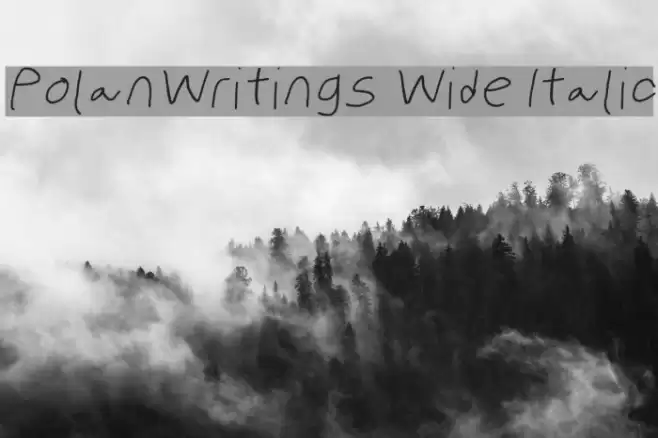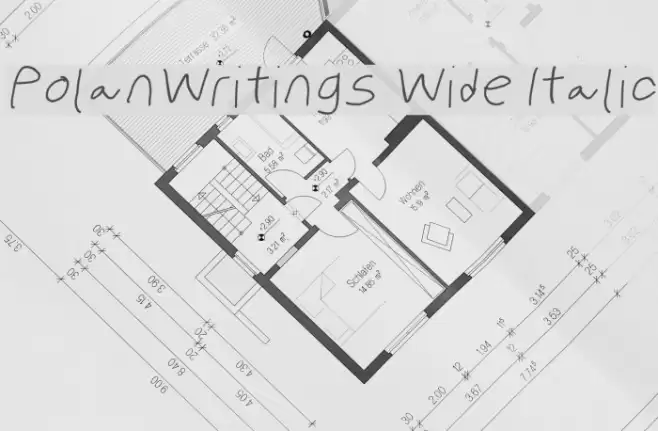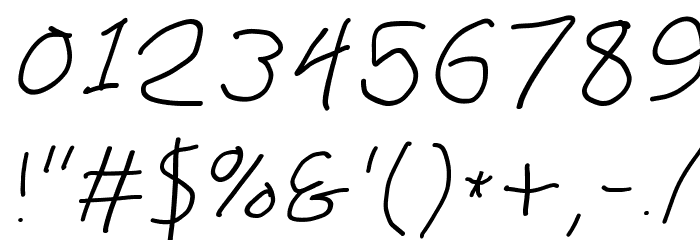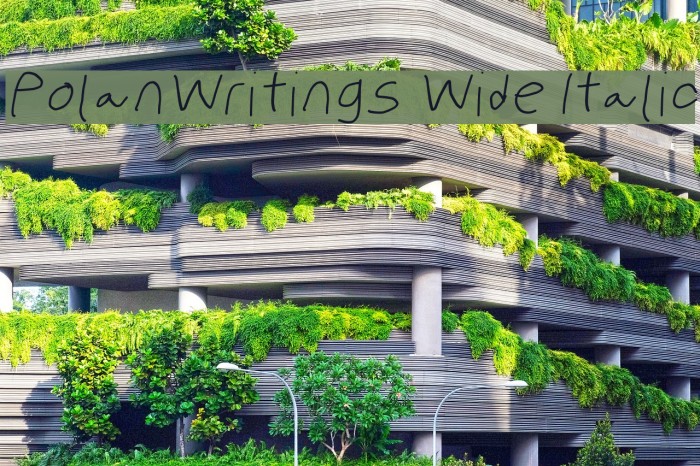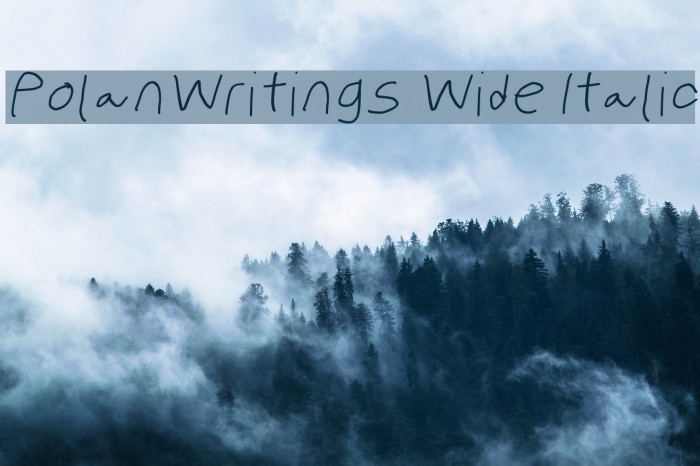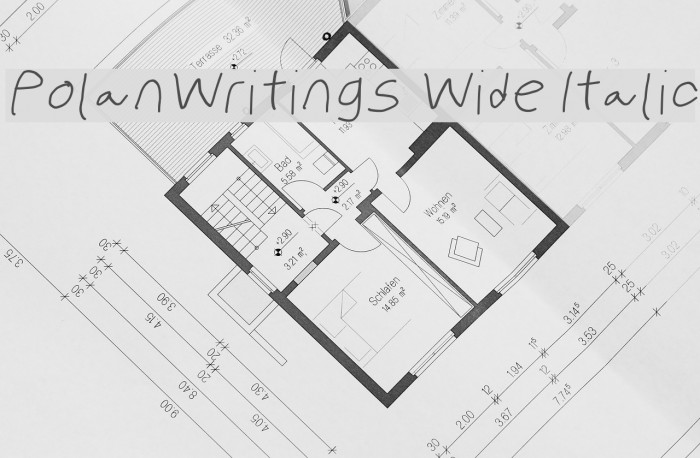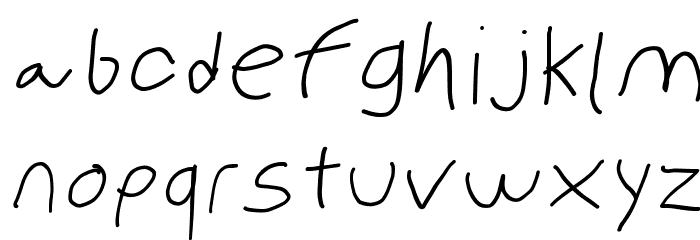
PolanWritings Wide Italic Font
PolanWritings Wide Italic Description
This font features a playful and casual handwritten style with a wide and italicized appearance. The characters are slightly slanted, giving an informal and dynamic feel. The strokes are smooth and consistent, with a natural flow that mimics handwriting. The uppercase and lowercase letters maintain a cohesive look, while the numerals and special characters blend seamlessly with the overall design. The font's wide spacing enhances readability, making it suitable for various creative applications.
A playful, wide, and italic handwritten font with smooth strokes from Uncategorized fonts.
- Proposed Projects: Ideal for greeting cards, personal notes, informal invitations, and creative branding projects.
- Width: Expanded
- Character Spacing: Wide
- Overall Style: Casual
- Use Case: Logos, Headlines, Informal Text